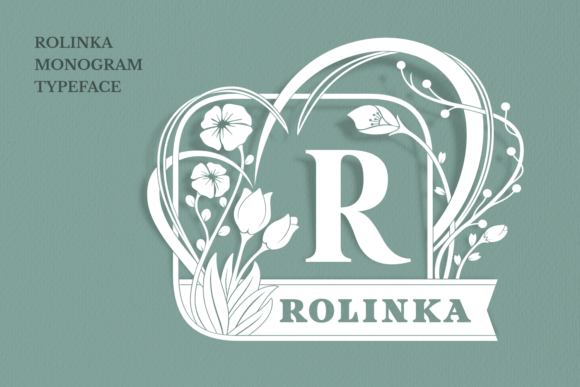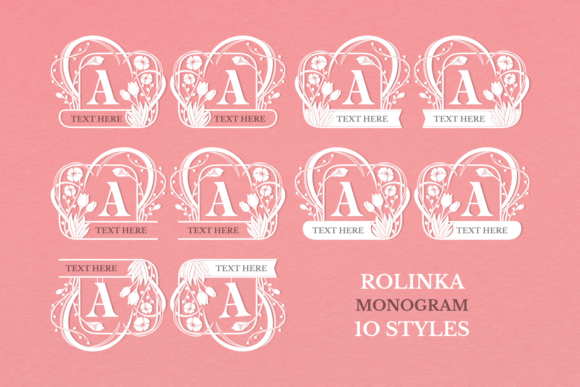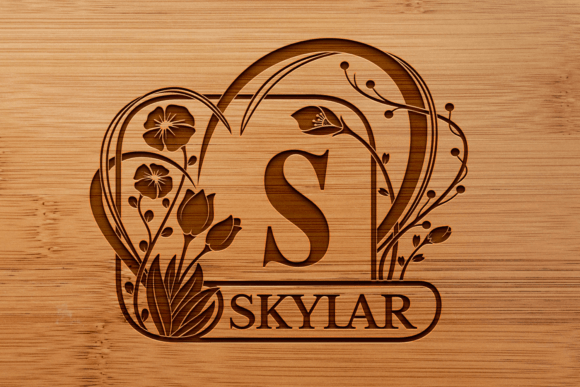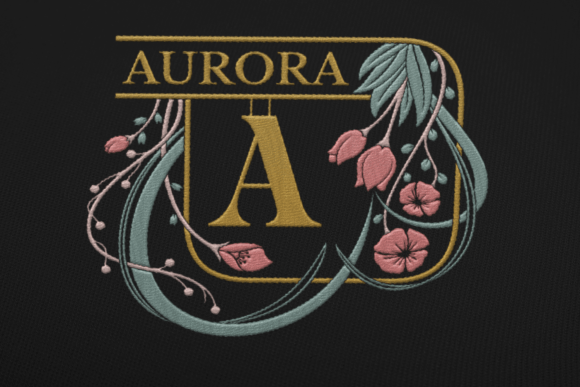
Rolinka Monogram Font
About the Rolinka Monogram Font
Get ready to be inspired by Rolinka Monogram Font, a fresh and dynamic typeface for modern creators. Rolinka Monogram is an incredibly chic and versatile decorative font. It will be an incredible addition to your design!
Rolinka Monogram’s elegant and decorative style makes it ideal for headlines, logos, and short text elements in branding materials, invitations, or packaging design. Its ornate details shine in applications requiring a touch of sophistication and visual flair, but are less suitable for body text or lengthy paragraphs due to its low x-height and decorative flourishes.
Pairing Rolinka Monogram effectively depends on the desired effect. For a modern feel, consider pairing it with a clean sans-serif like Lato or Open Sans. To emphasize its elegance, a classic serif such as Garamond or Playfair Display provides a strong contrast.
The font possesses a distinctly sophisticated and slightly playful personality, best suited for brands projecting luxury, creativity, or a touch of vintage charm. Avoid using it where readability is paramount.
Rolinka Monogram Font Usage Examples
Rolinka Monogram Font Example